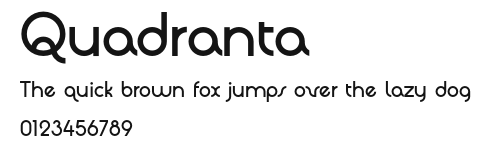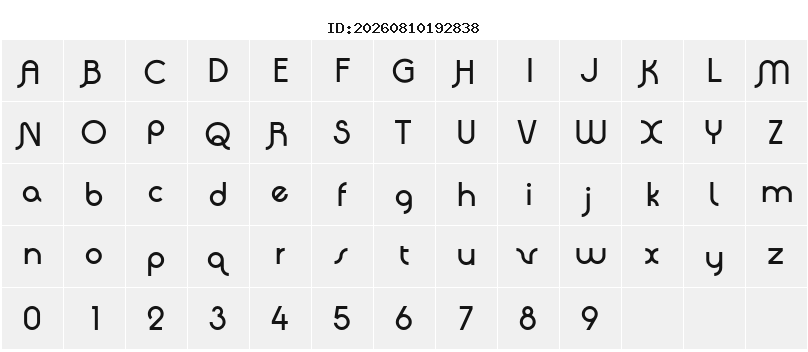
Quadranta Preview
• Font Name: Quadranta
• Designer: Darim Kim
About Quadranta.otf
Quadranta.otf is a modern, elegant sans-serif font designed for ultimate readability and visual harmony. Perfect for branding, headlines, web design, and print materials.